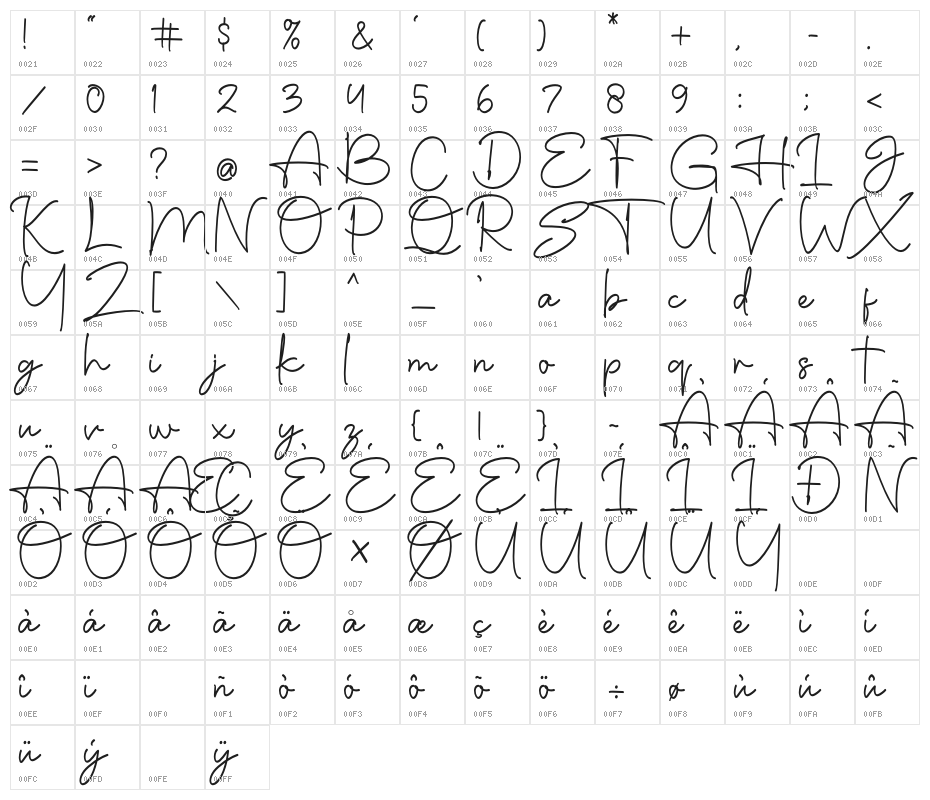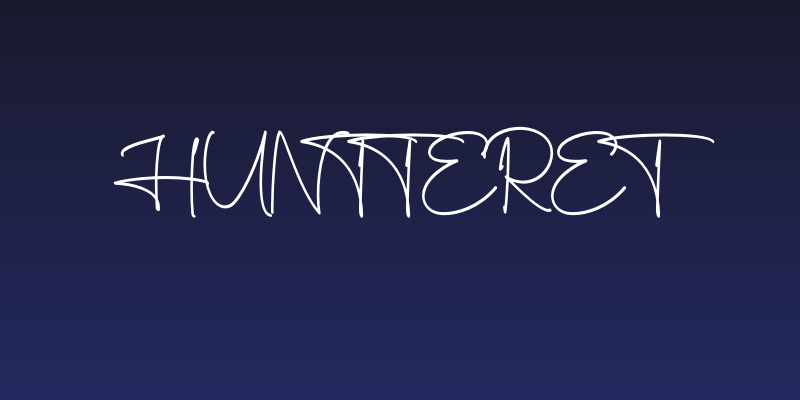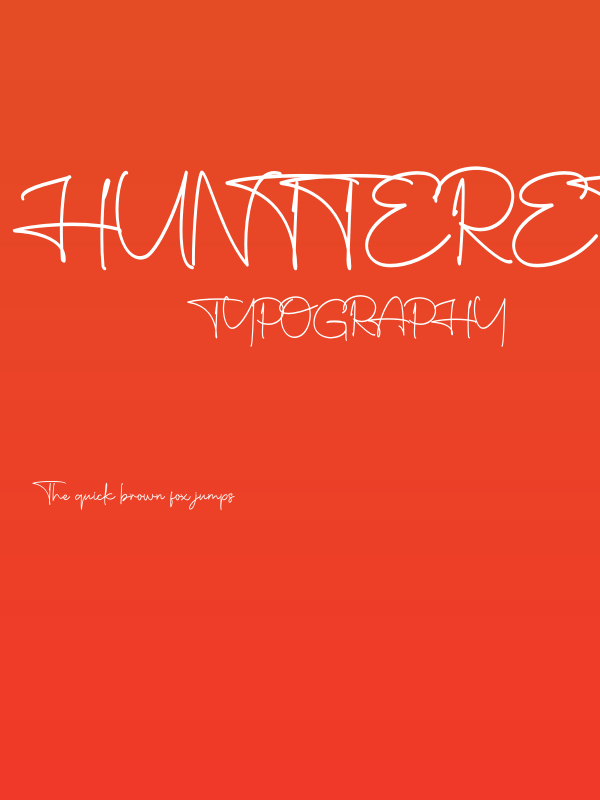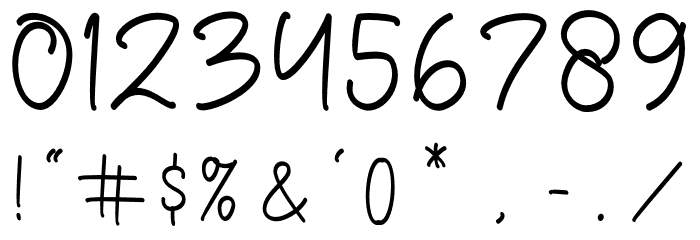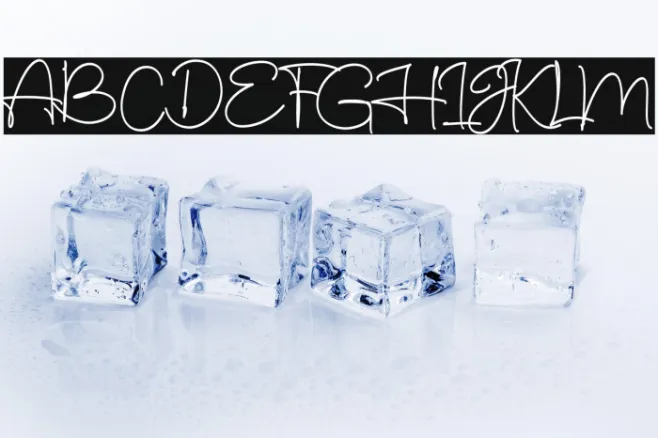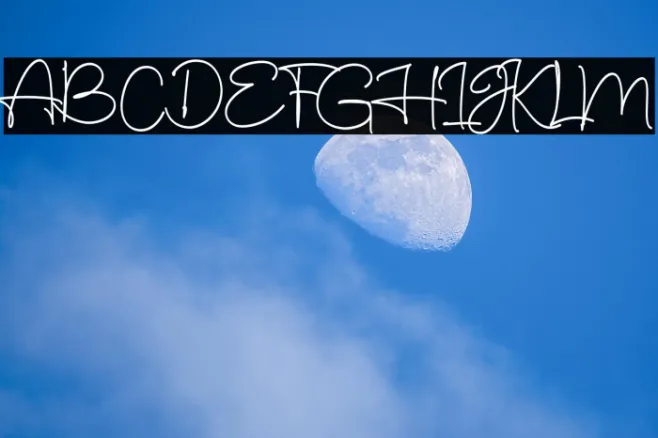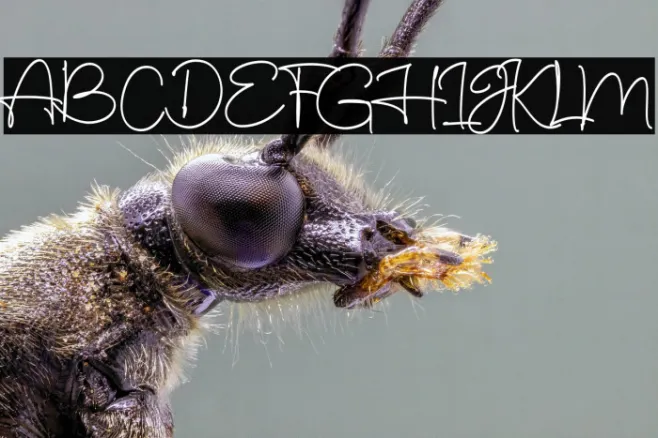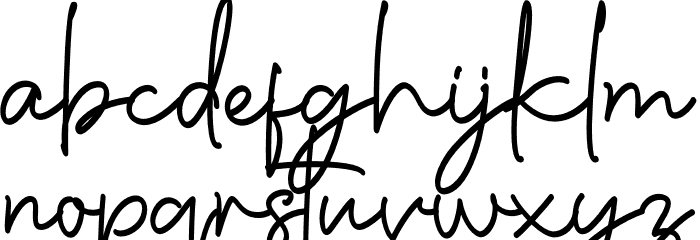
Huntteret Font
Huntteret Description
This font exudes a lively and dynamic energy with its handwritten style, characterized by fluid, interconnected strokes that mimic natural handwriting. The uppercase letters are tall and slender, with a slight slant that adds a sense of motion and elegance. Lowercase letters maintain a consistent flow, enhancing readability while retaining a personal touch. Numbers are distinct and clear, matching the overall aesthetic with their rounded forms. Special characters are thoughtfully designed, integrating seamlessly with the rest of the font. The overall appearance is both casual and sophisticated, making it versatile for various design needs.
| Overall Style | Casual, Elegant |
| Proposed Projects | Ideal for personal branding, invitations, greeting cards, and creative projects that require a personal, handwritten feel. |